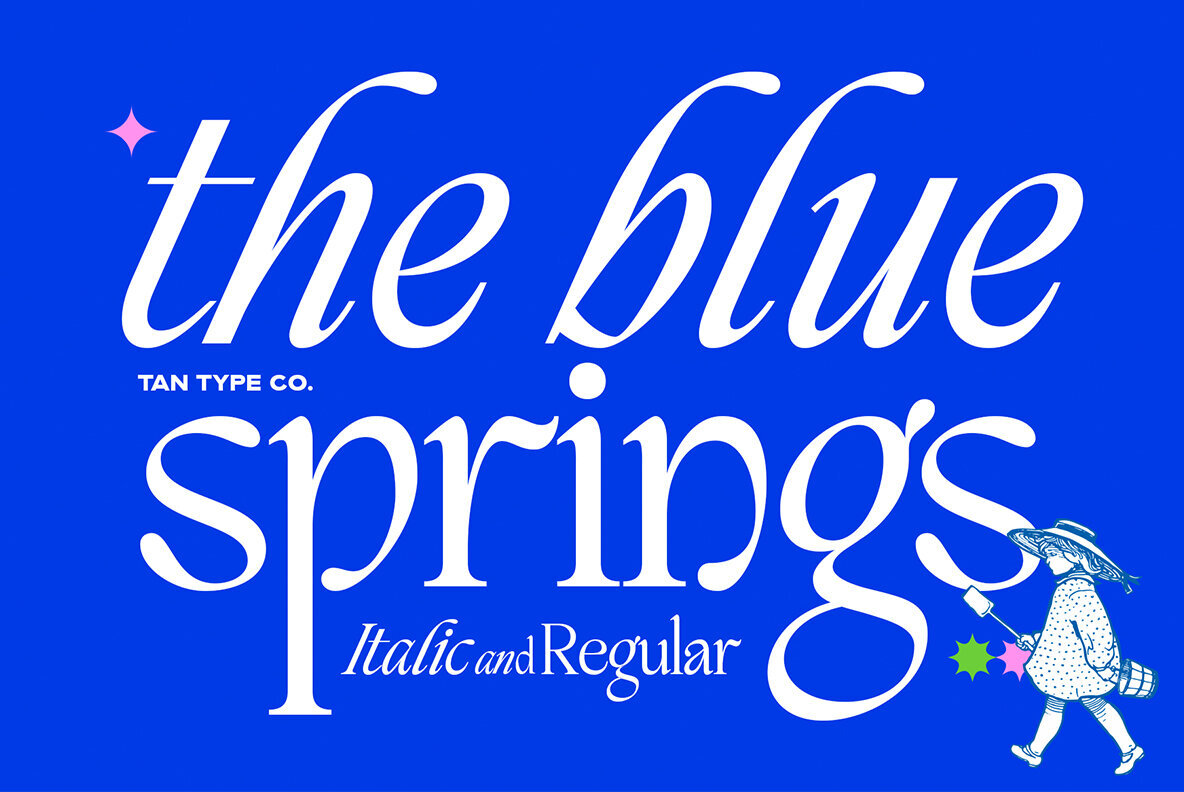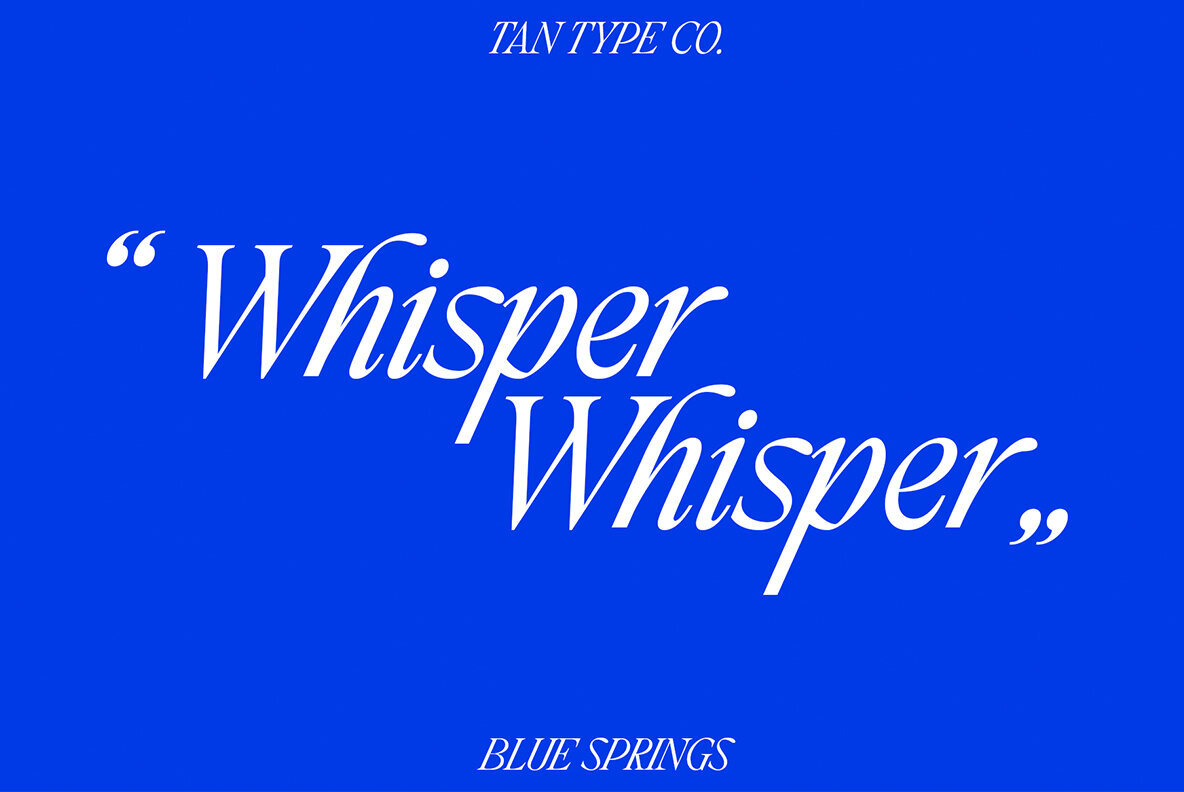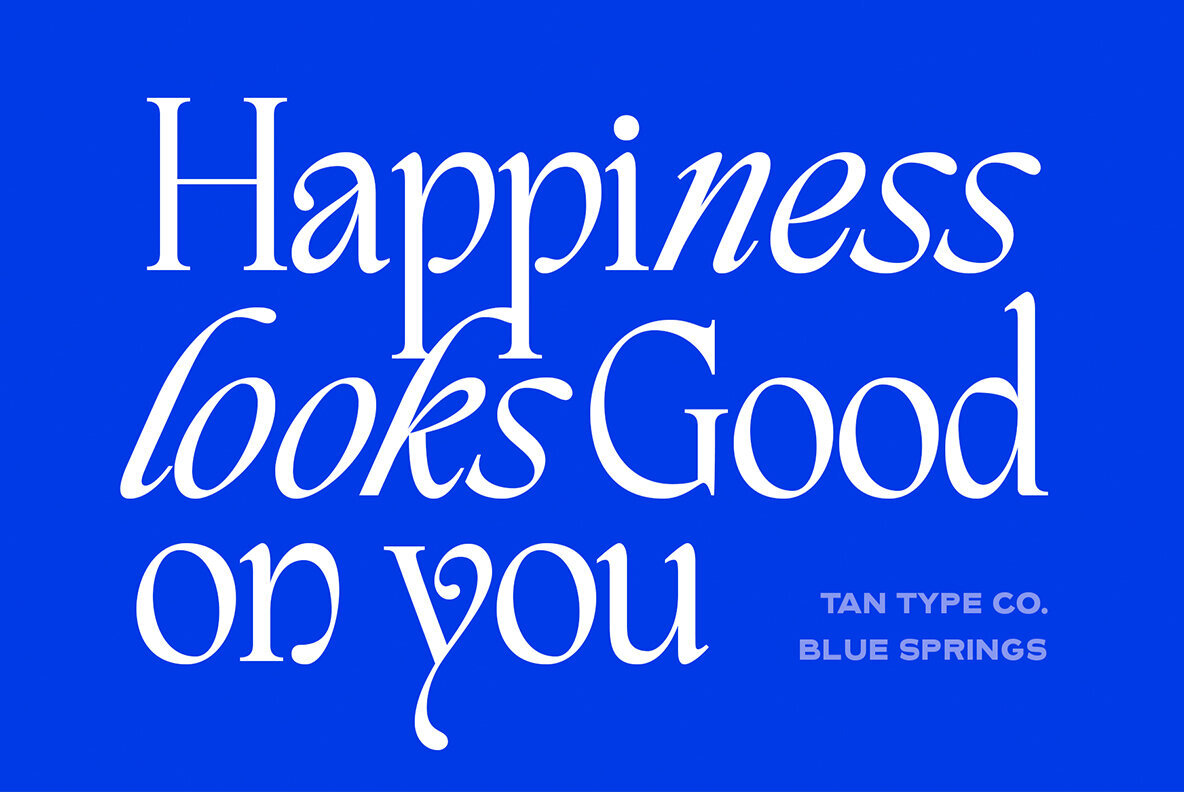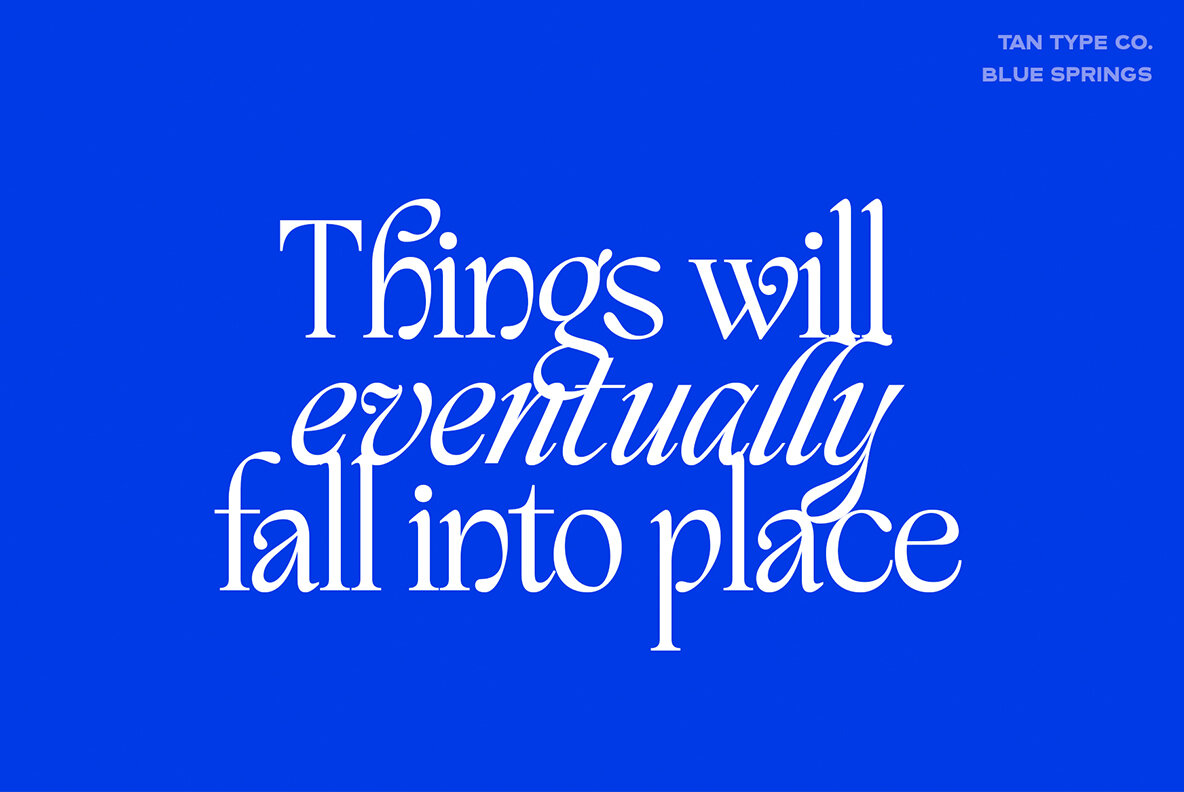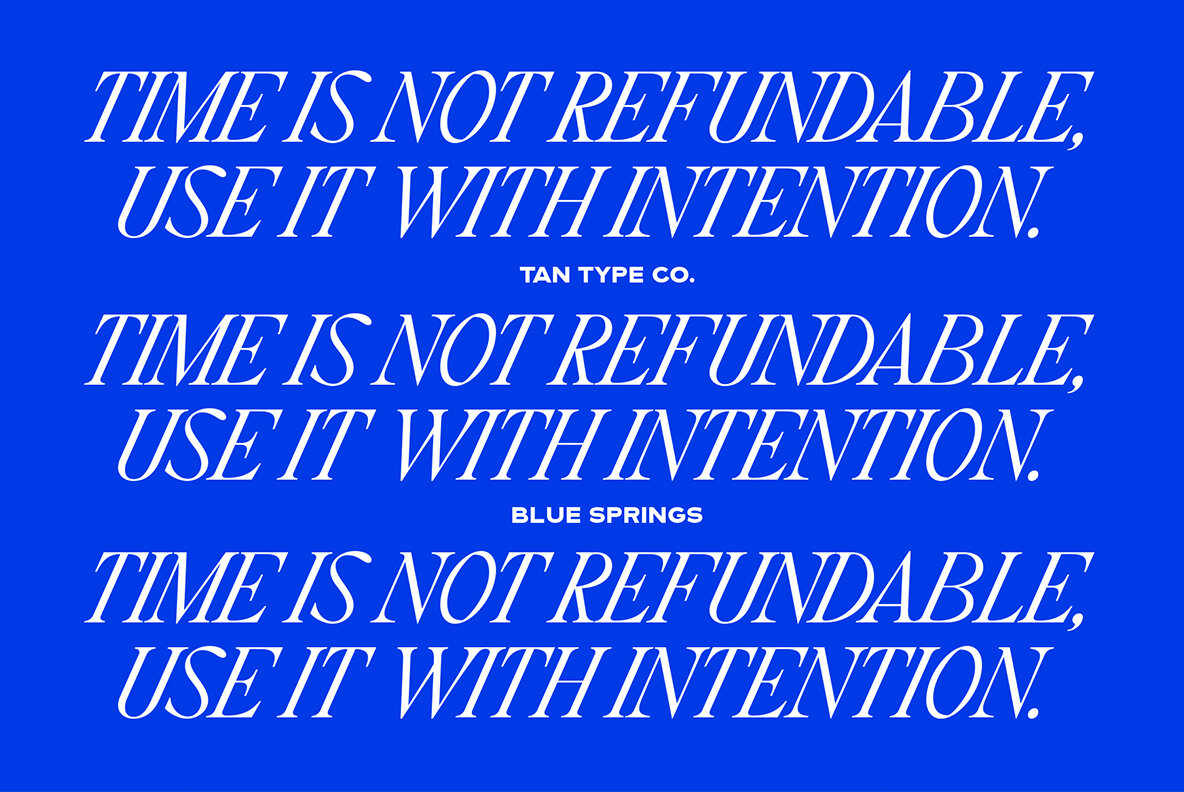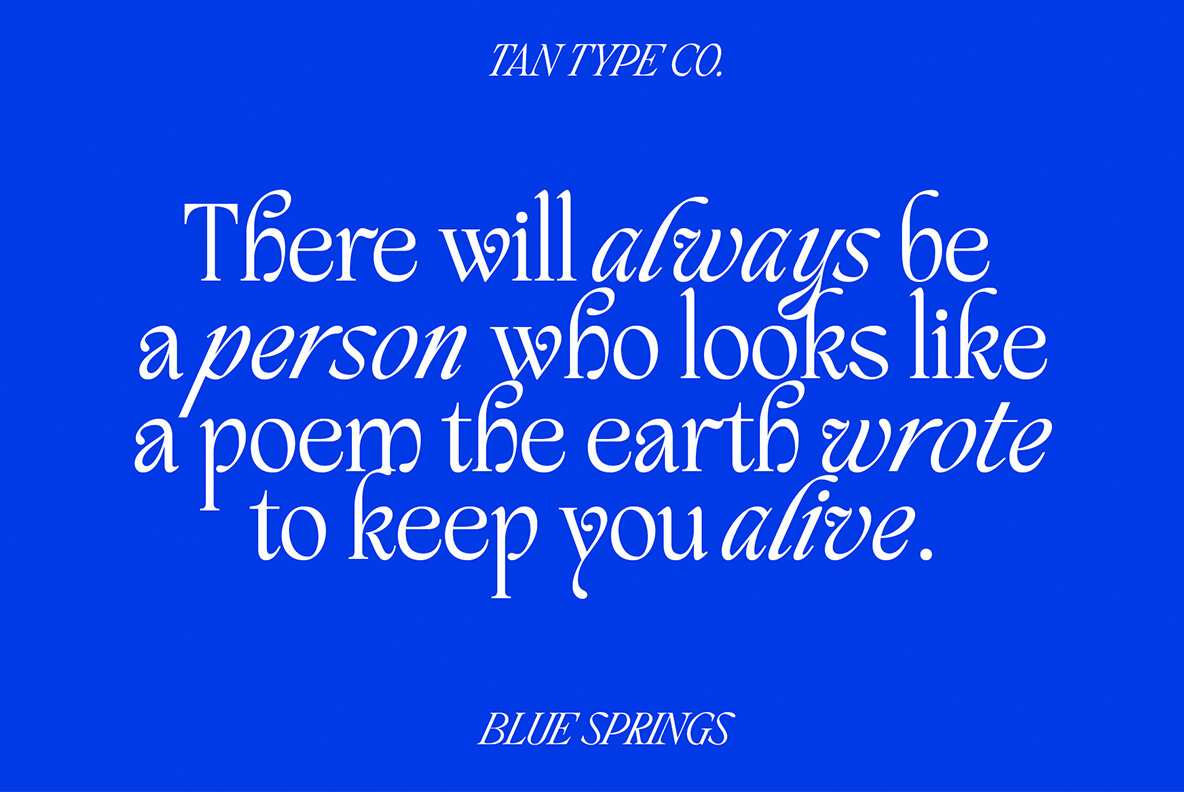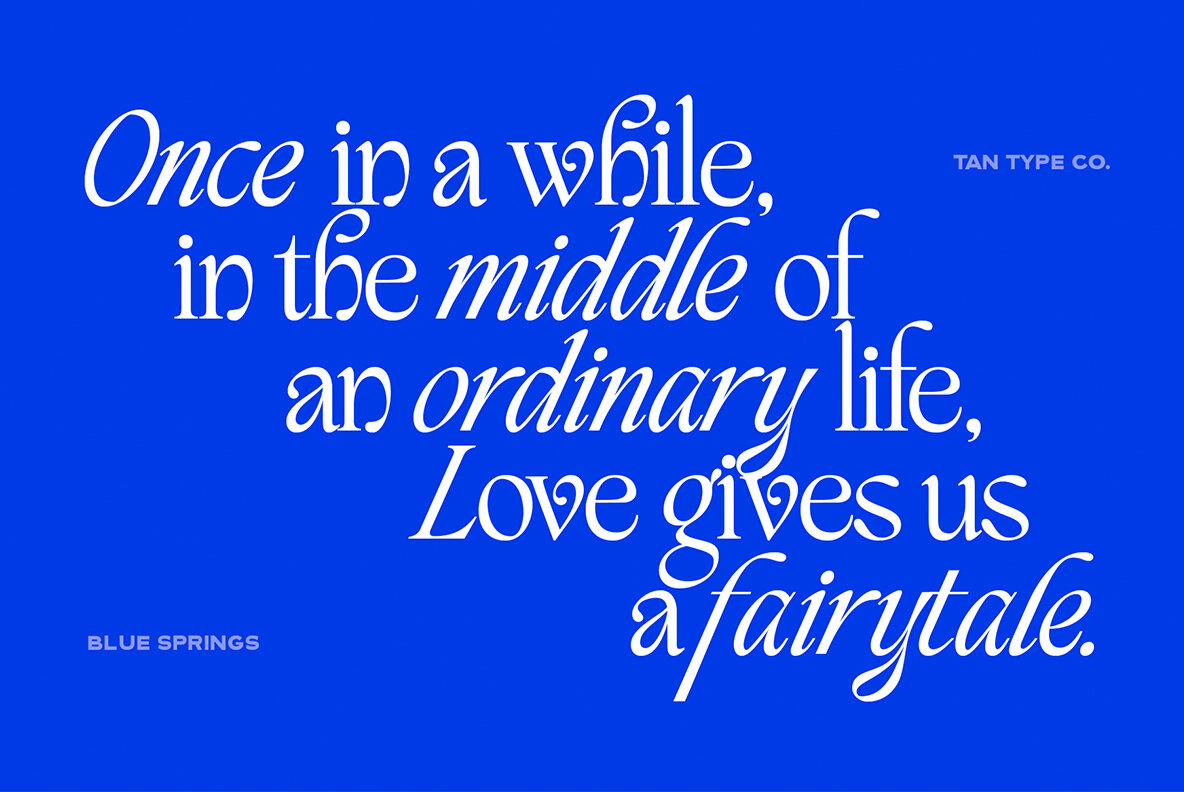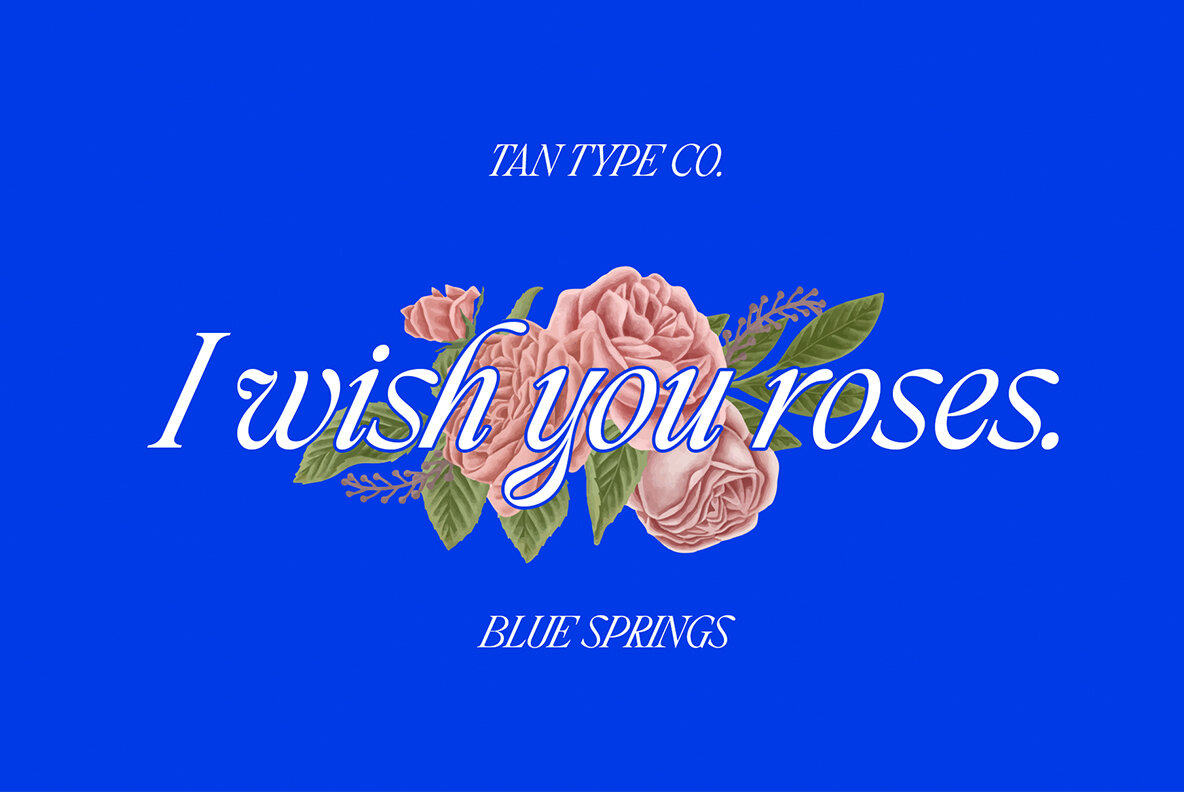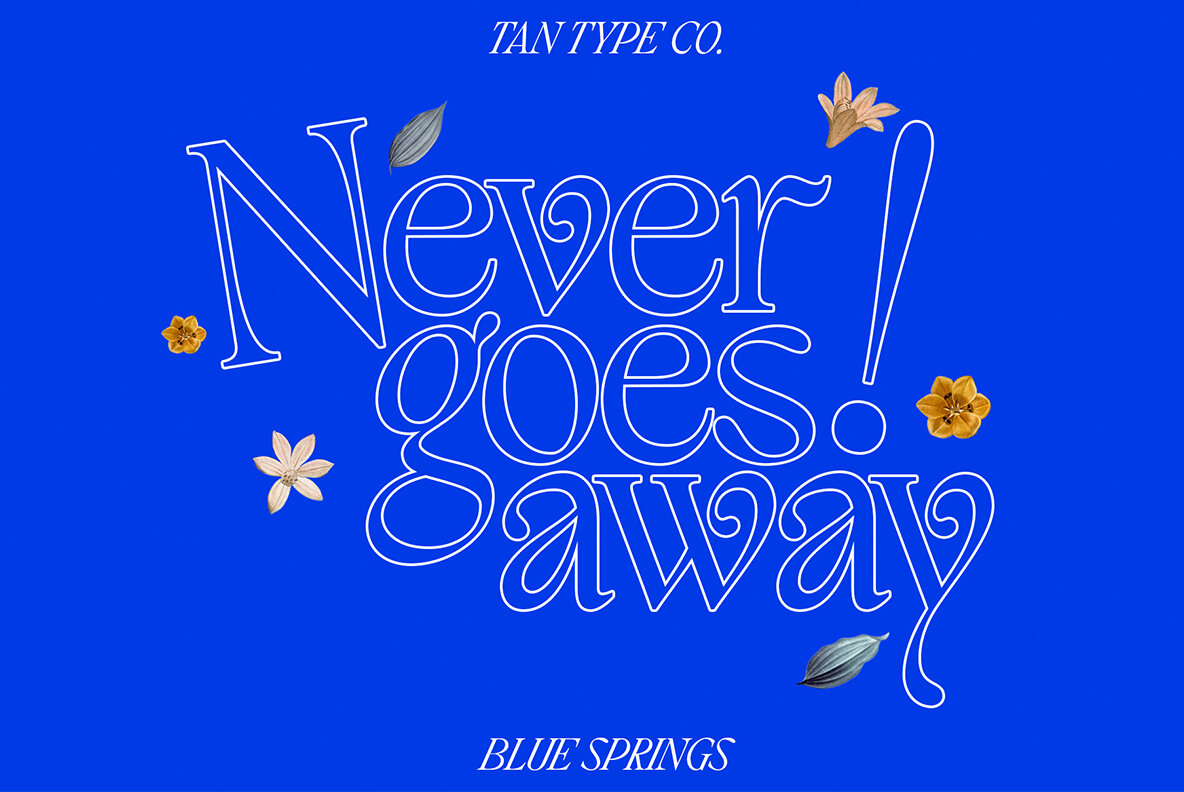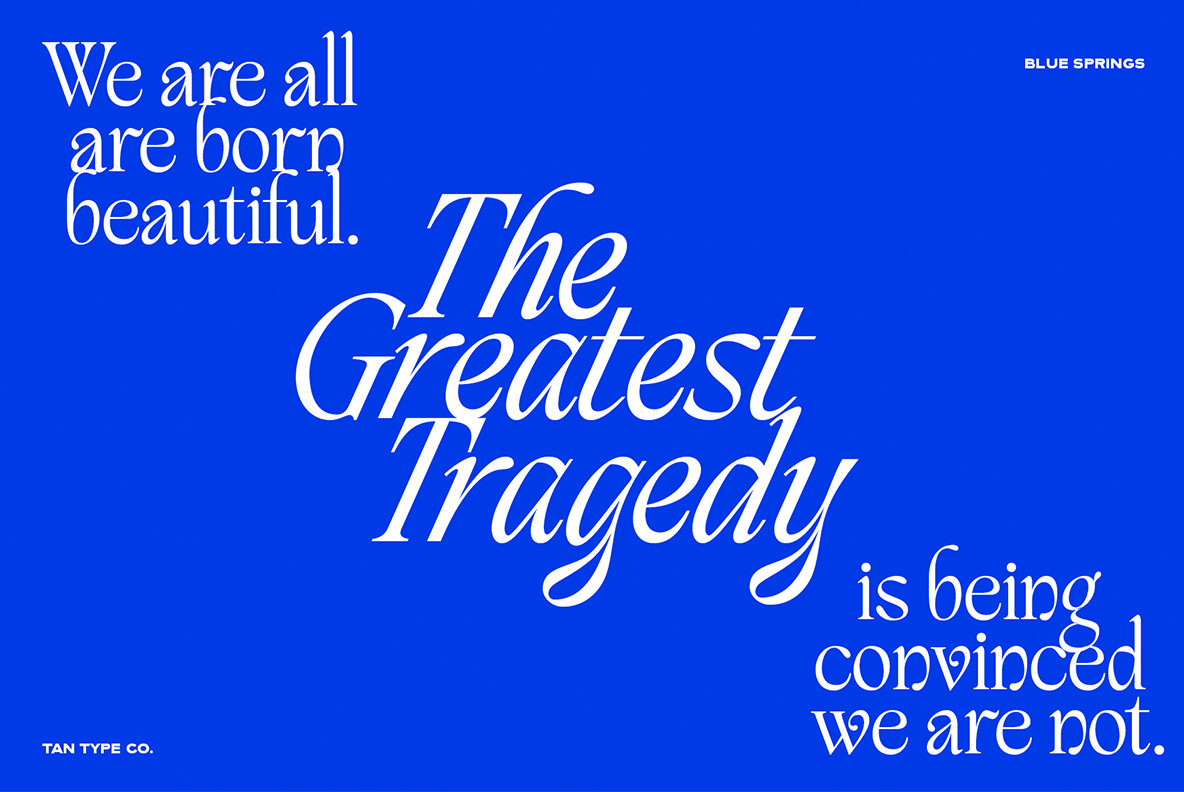
TAN BLUE SPRINGS Font
Blue Springs seamlessly combines the elegance of a timeless typeface with a touch of modern flair. This font’s graceful structure offers versatility for diverse design needs, from sophisticated branding projects to engaging editorial layouts. Despite its classic roots, it exudes a distinctive personality, ensuring each design remains lively and engaging.Blue Springs: Classic Font with a Playful Twist
TanType Co. is a distinguished font designer specializing in classical and decorative typefaces that exude elegance and sophistication. Renowned for their meticulous craftsmanship, each type design by TanType Co. is packed with over 300 glyphs and features advanced OpenType functionalities, ensuring versatilit...